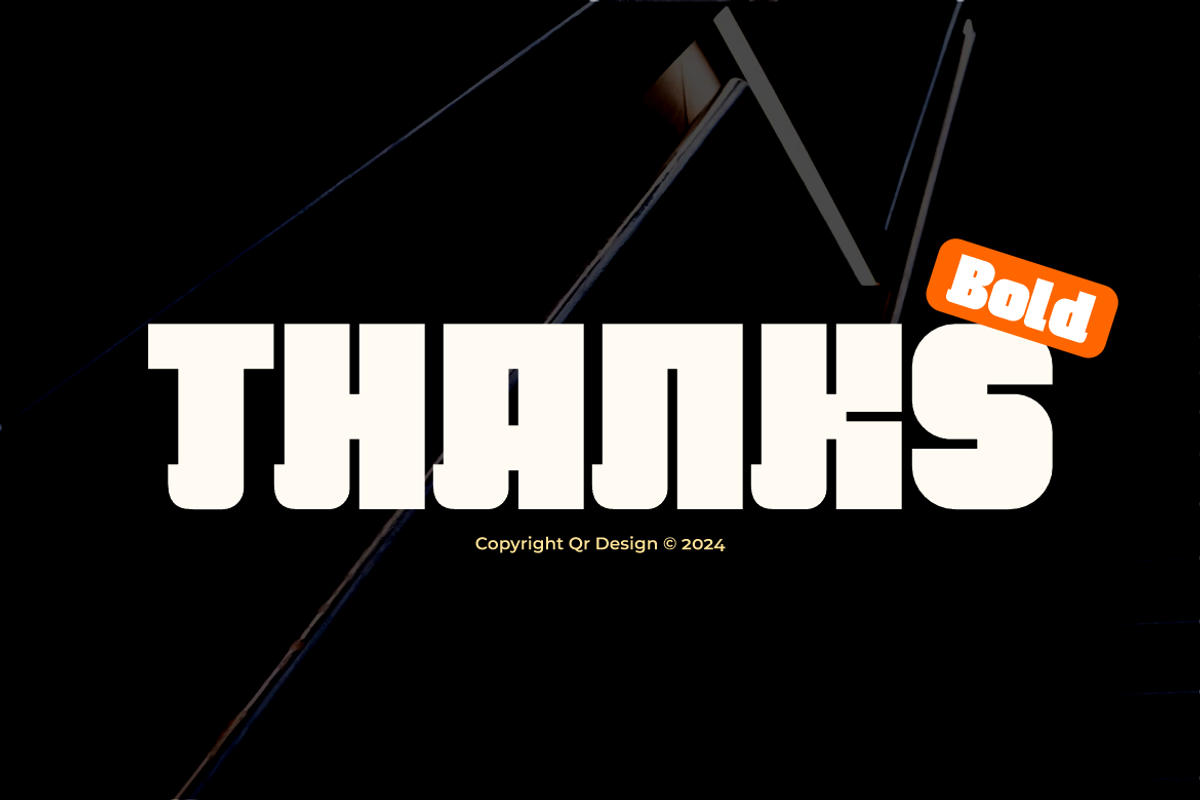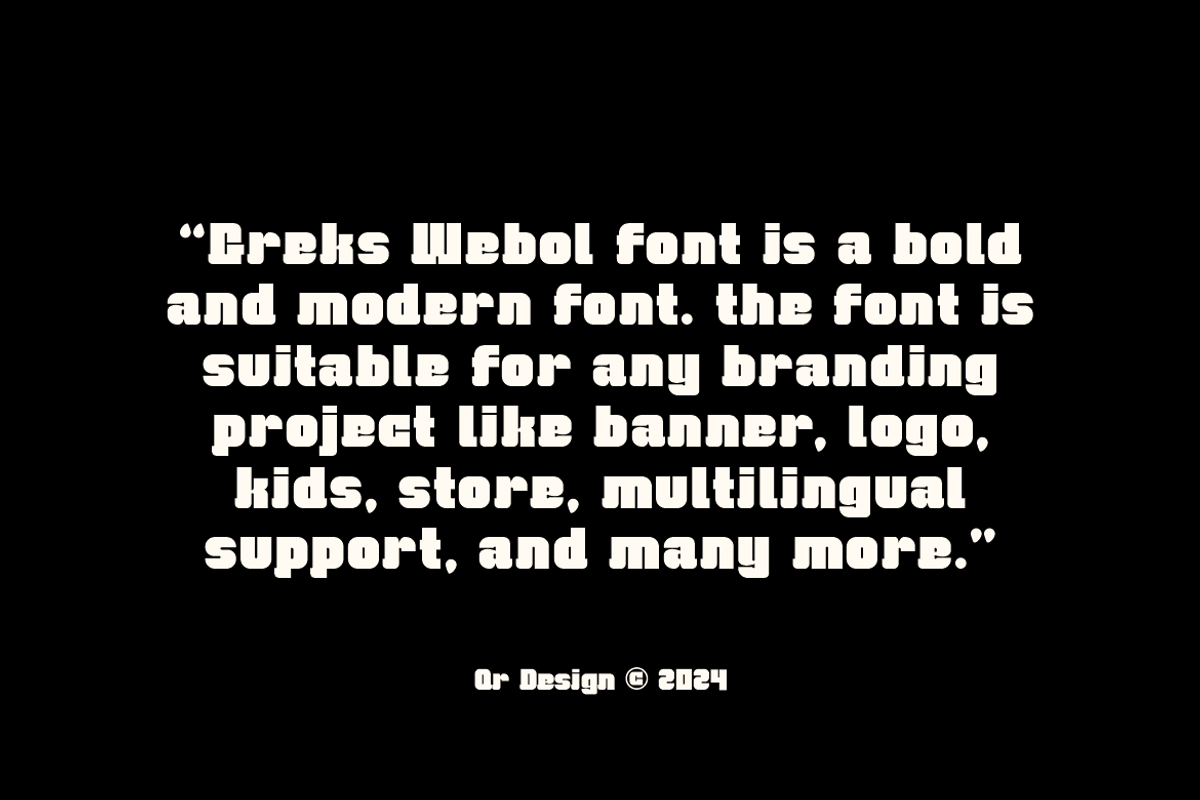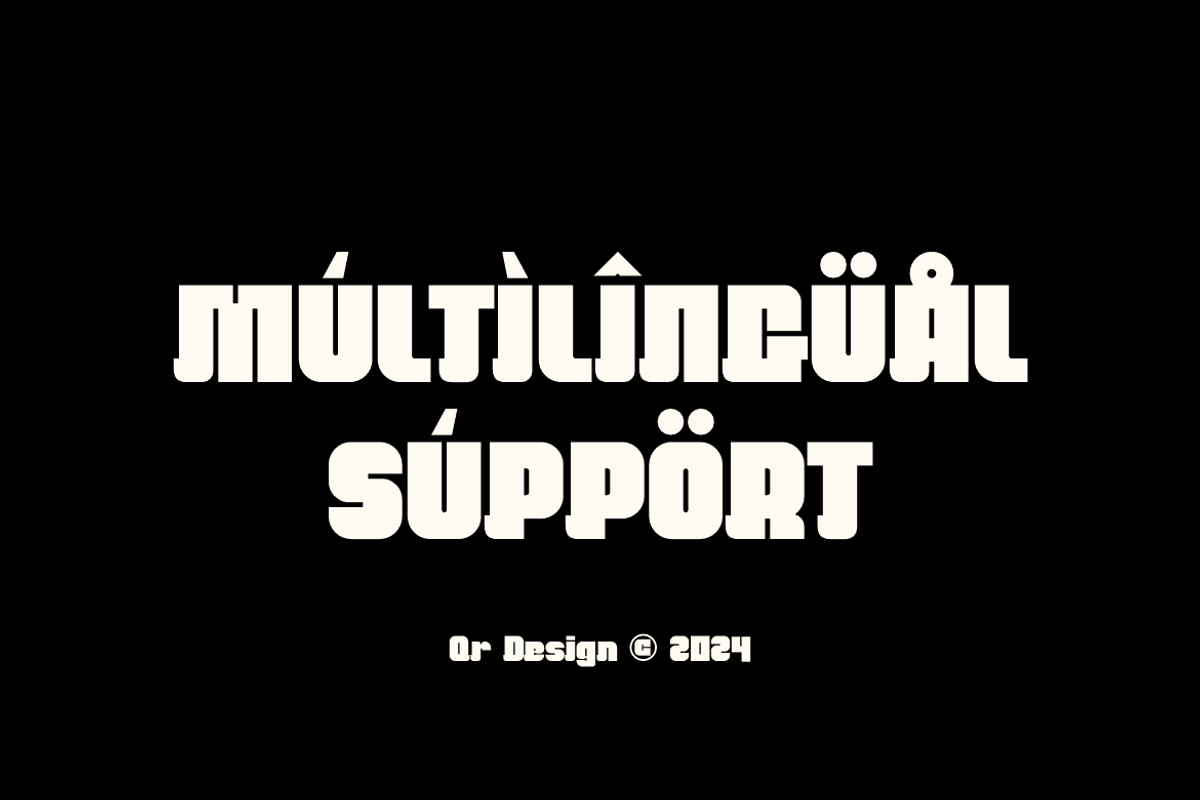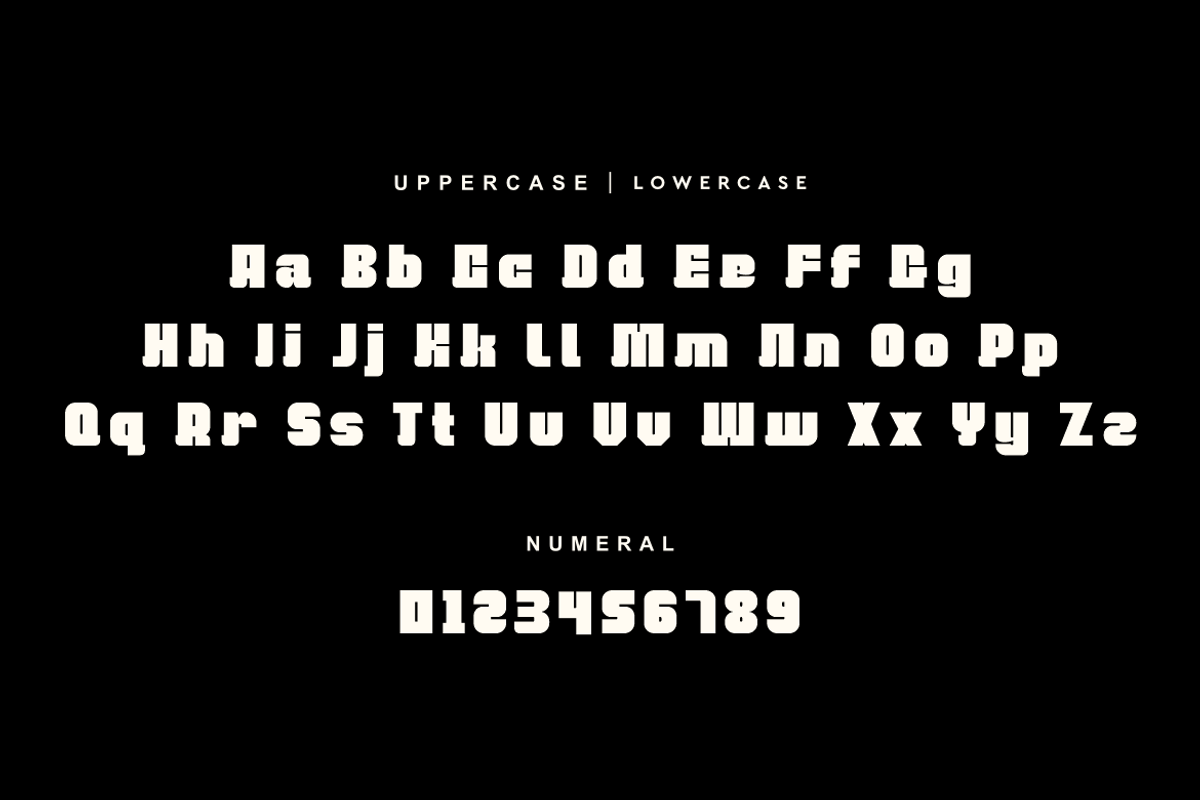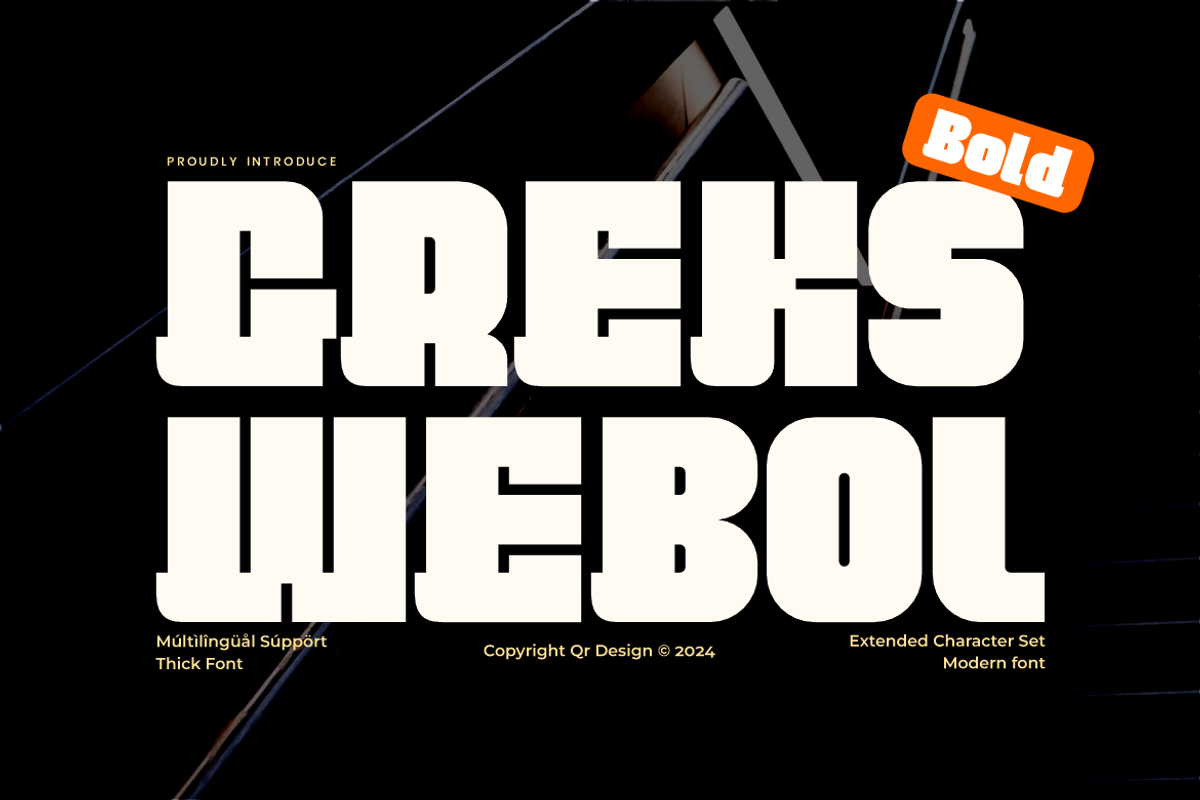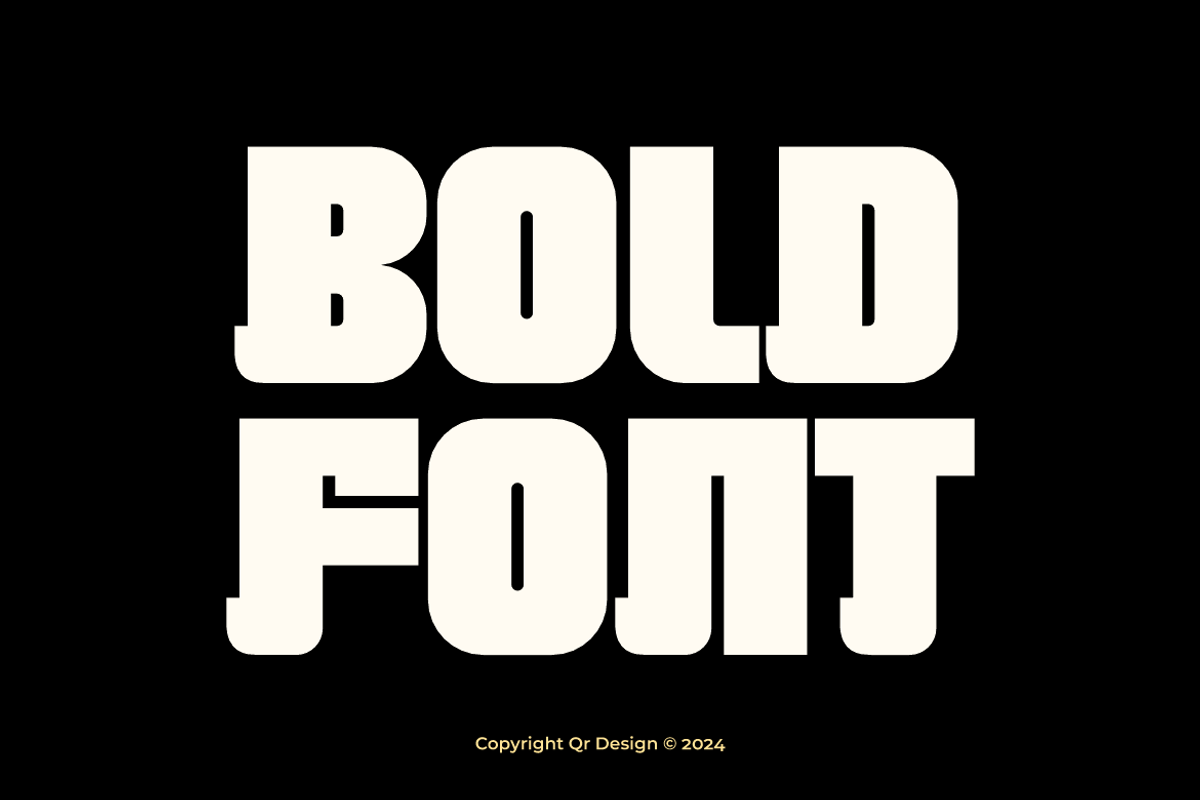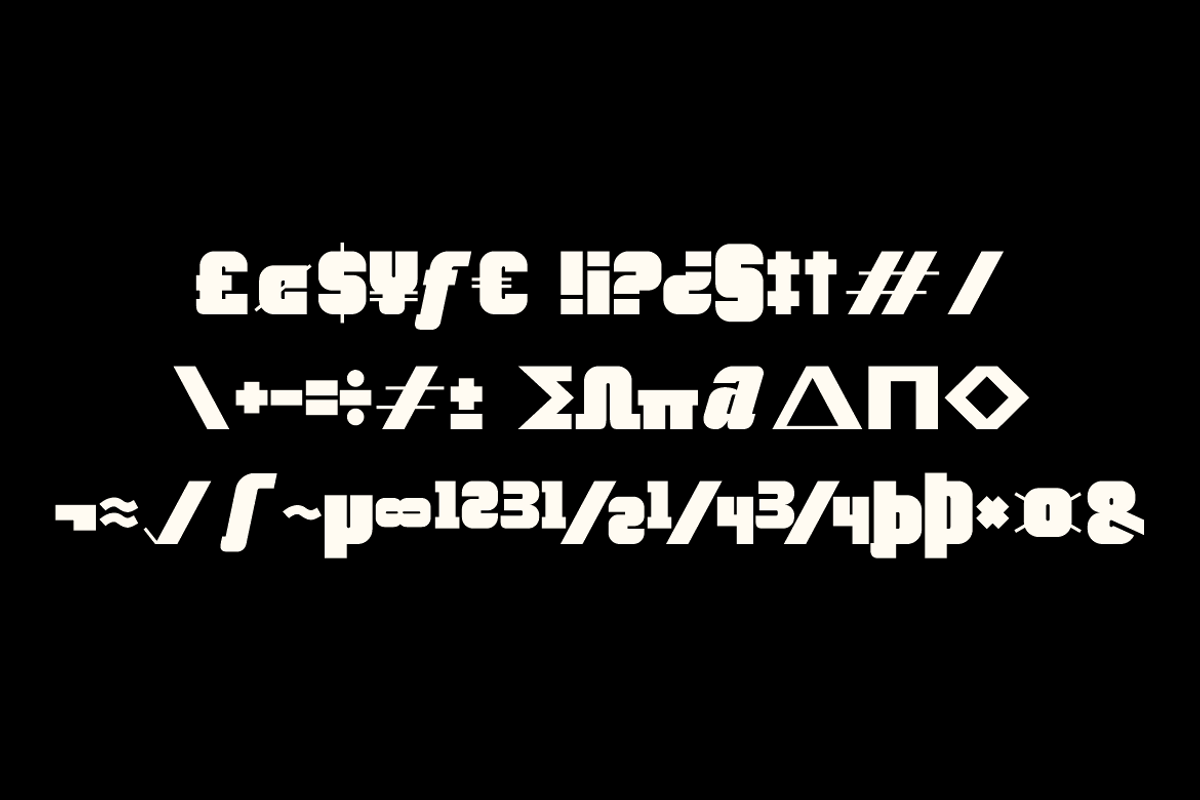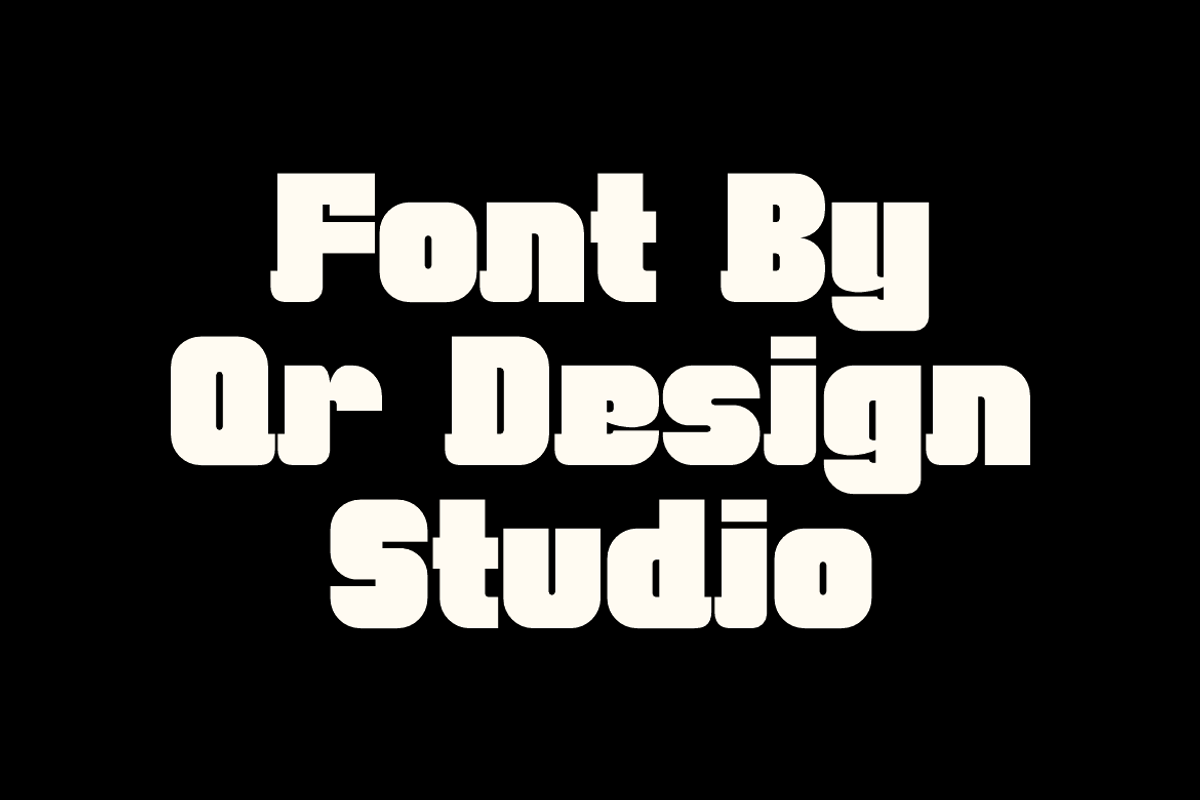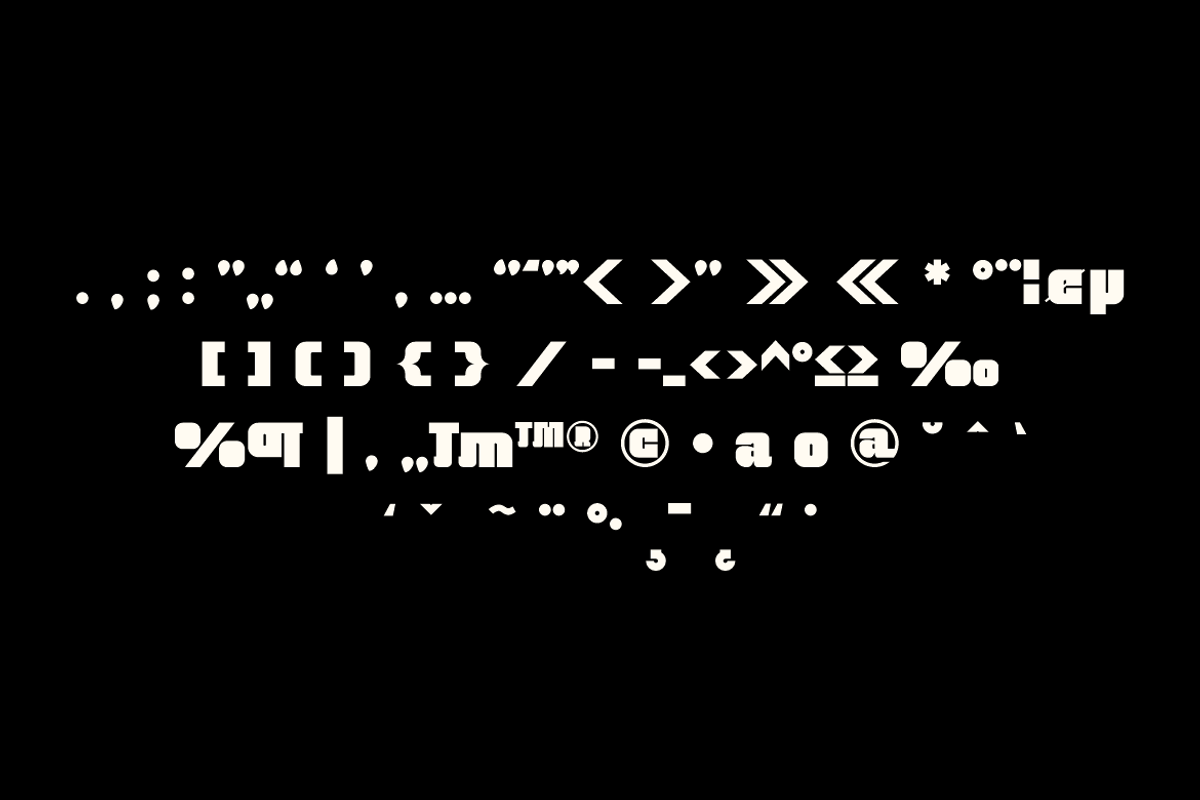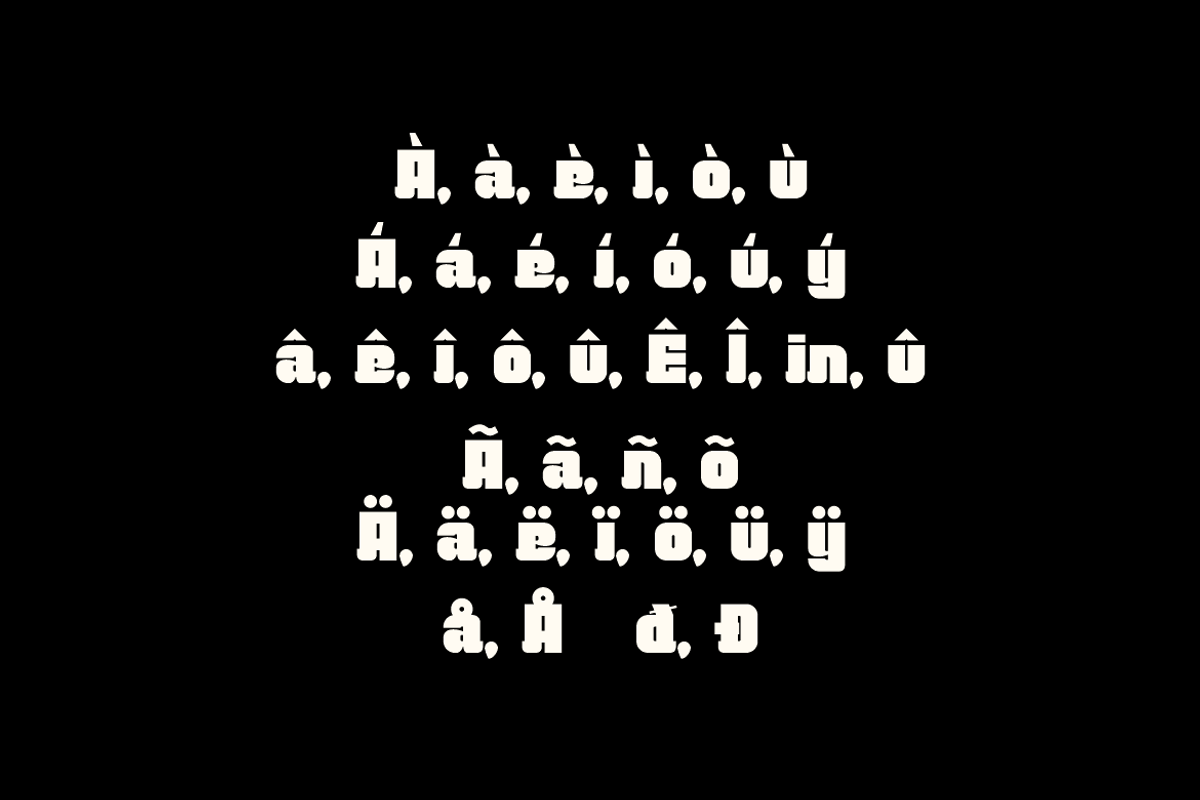
Greks Webol - Block & Bold Font
Greks Webol Font is a bold and authentic display font. The font is suitable for any branding project like poster, logo, sport, and many more. Outstanding in a wide range of contexts.
Main Features
- Ligatures & Alternate
- Numeral & Punctuations
- Extended Character Set